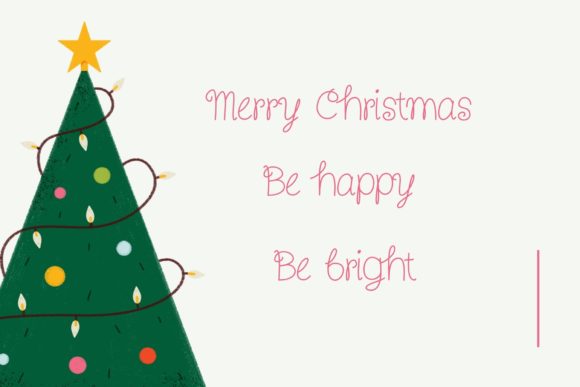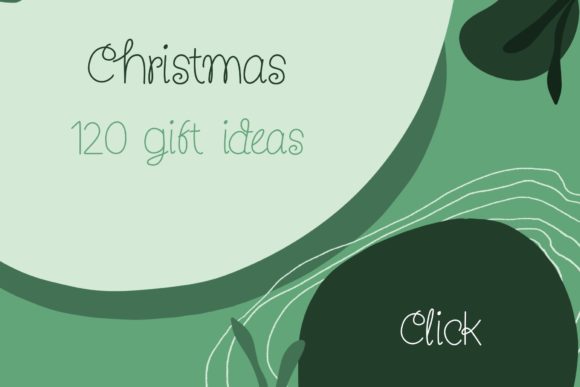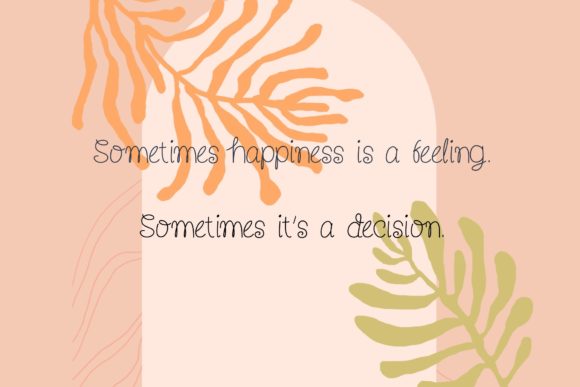
Sophia Font
About Sophia Font
Sophia is a delicate and thin lettered handwritten font. Fall in love with its incredibly distinct and timeless style and use it to create spectacular designs!